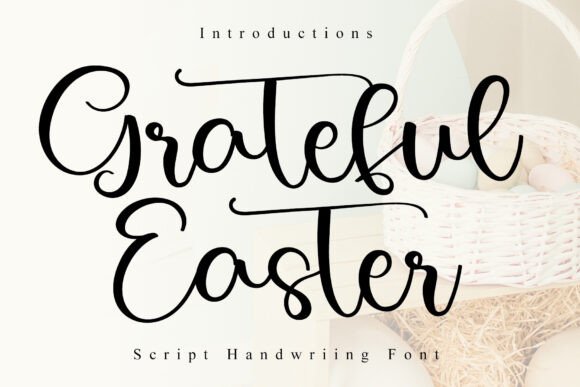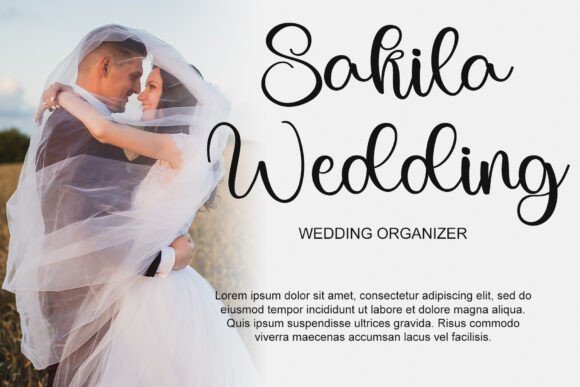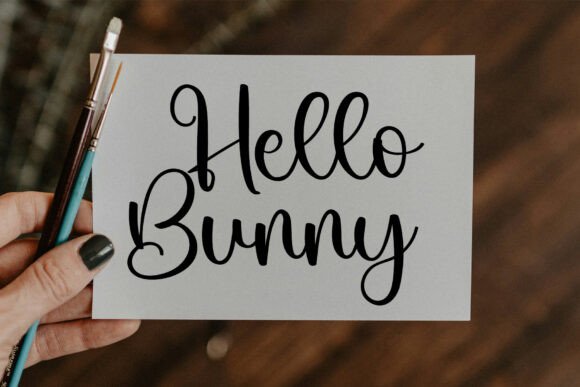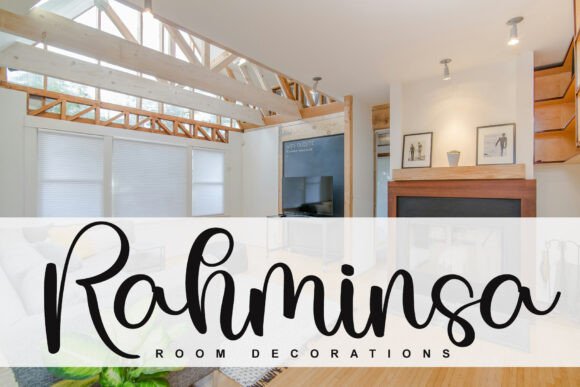
Grateful Easter Font
About the Grateful Easter Font
Get ready to be inspired by Grateful Easter Font, a fresh and dynamic typeface for modern creators. Grateful Easter – A Nostalgic Elegant Script Font
Step into a world of timeless charm with Grateful Easter , a beautifully crafted handwritten script font that combines vintage elegance with heartwarming character. This Elegant Script Font features delicate flourishes and natural variations, perfect for designs that crave both sophistication and nostalgic personality. Whether you’re creating heirloom recipes, retro packaging, or sentimental stationery, Grateful Easter adds that special handwritten touch that feels like a cherished memory. Elevate your projects with this warm, script handwriting font that tells its own story!